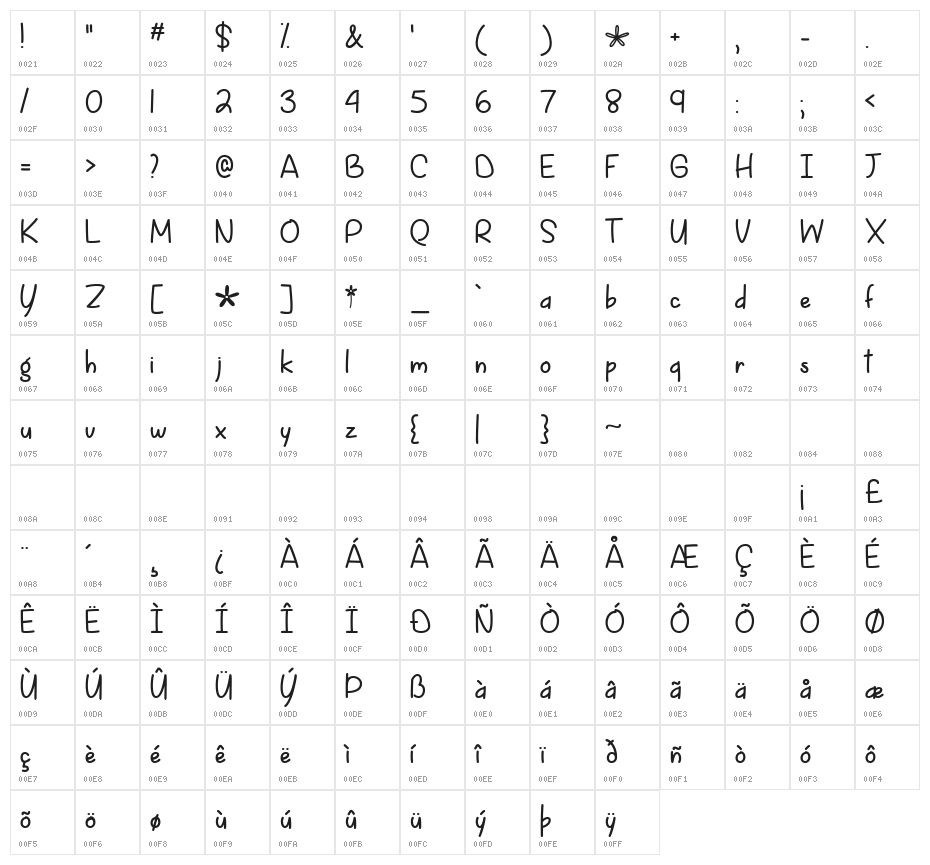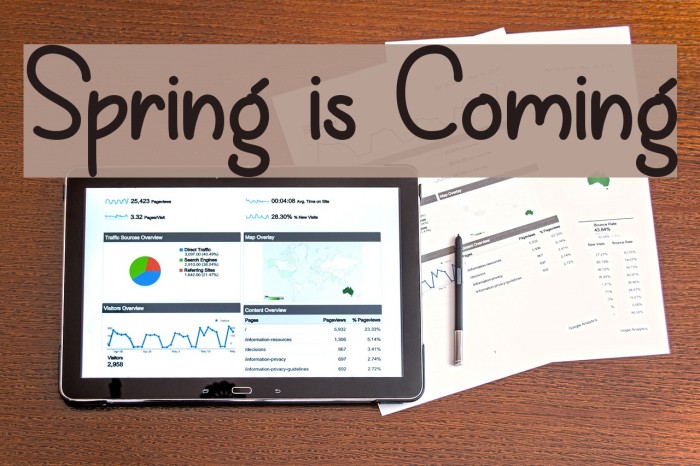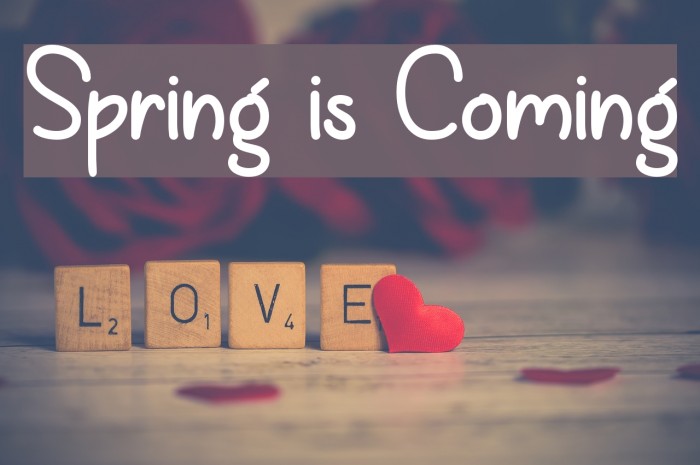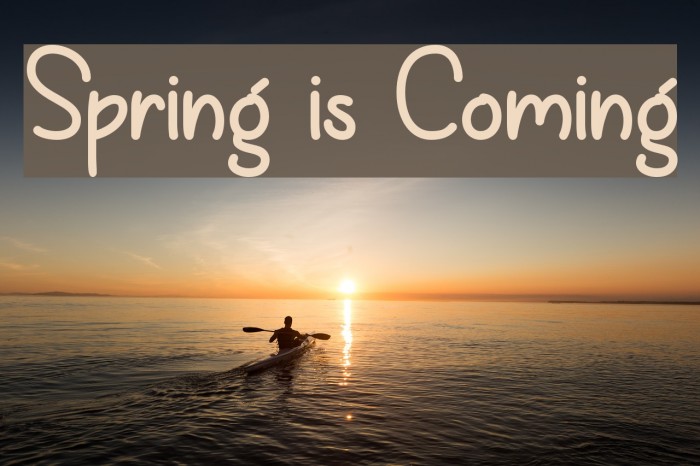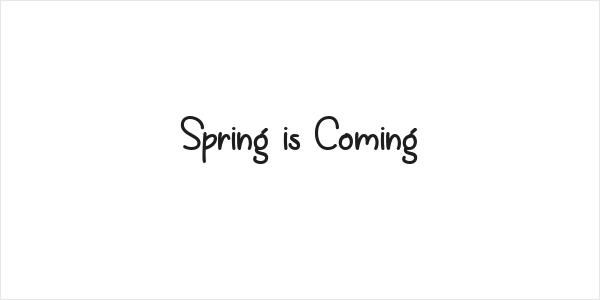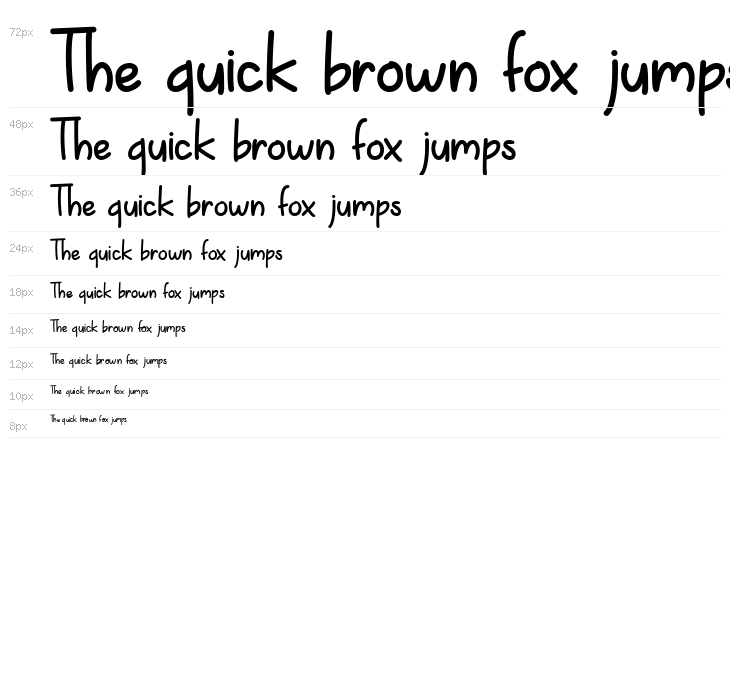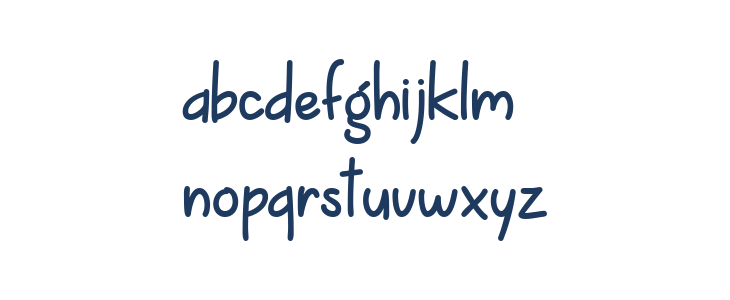
Spring is Coming Font
Spring is Coming Description
This playful and casual font features a handwritten style with smooth, rounded edges and a friendly appearance. The uppercase letters are bold and slightly condensed, while the lowercase letters maintain a consistent flow with a touch of whimsy. The numerals are clear and easy to read, complementing the overall aesthetic. Special characters are designed to match the playful tone, making this font versatile for various creative projects. Its informal style is perfect for conveying a sense of approachability and fun.
| Proposed Projects | Ideal for children's books, greeting cards, playful branding, and social media graphics. |